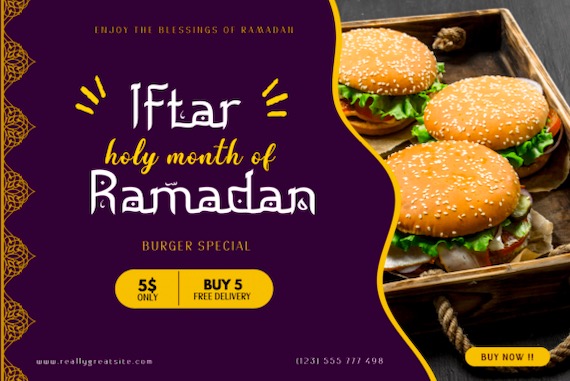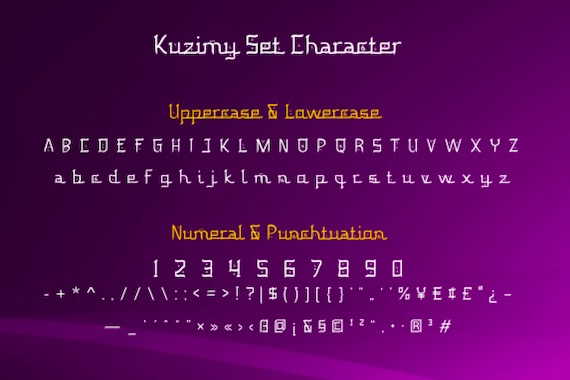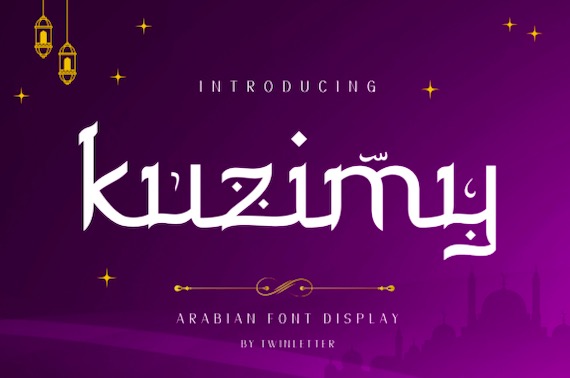
Proudly introduce to Kuzimy. It’s an elegant modern Arabic font that was created and designed by Twinletter. This display font will help you create designer-quality designs with ease. You will get a variety of styles for your project. They come in upper and lower case and alternate with different shapes. You will be able to easily create professional designs with an Arabic Style theme.
Kuzimy Display Font